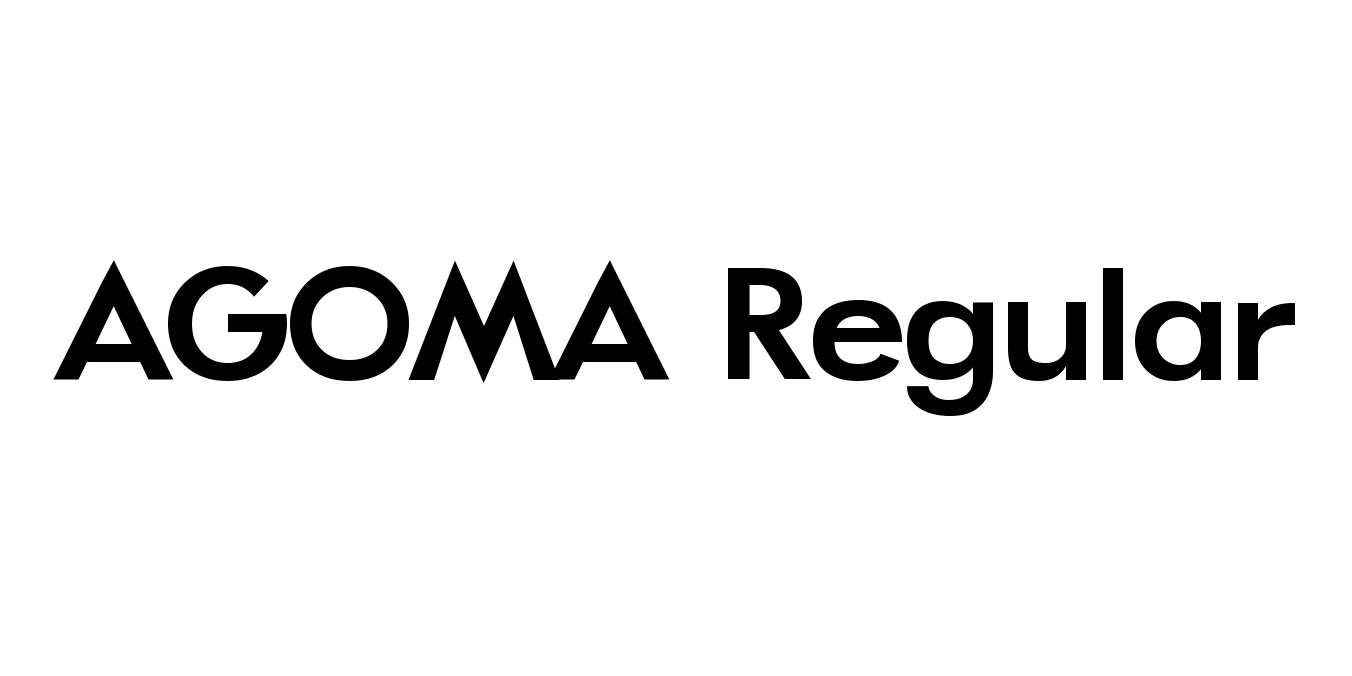
AGOMA Regular
Designed by Eko Bimantara
AGOMA Regular is a modern sans-serif typeface that prioritizes geometric precision and functional aesthetics. Developed by the renowned designer Eko Bimantara, this font stands out for its clean, unadorned lines and balanced character widths, making it highly versatile for a wide range of professional applications in the contemporary design landscape.
Its architectural clarity allows for exceptional readability across various platforms, from high-resolution print materials to mobile digital screens. Whether utilized for corporate branding, minimalist editorial layouts, or sophisticated user interfaces, AGOMA Regular provides a solid foundation that complements modern design trends while ensuring the message remains the primary focus.
AGOMA Regular Best Uses
Ideal for creating strong, modern, and trustworthy brand logos.
Perfect for clean and legible body text or navigation menus in UI/UX projects.
Works exceptionally well for headlines and subheads in fashion or tech magazines.
Great for large-scale poster displays and minimalist social media graphics.